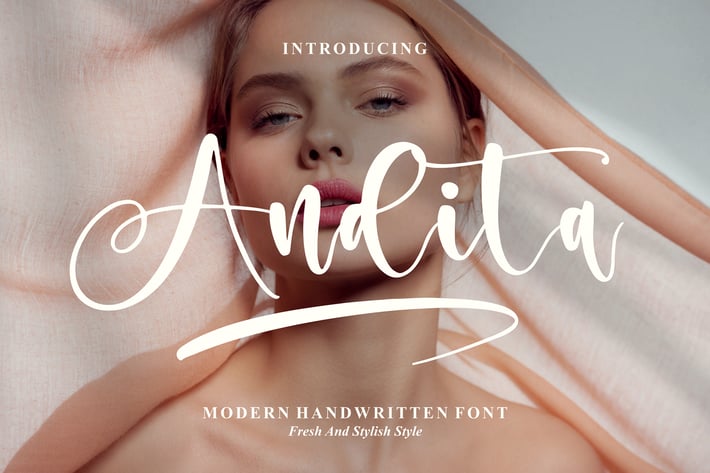
Andita Modern Handwritten Font
Andita is a modern handwritten font designed with soft strokes and a fresh, stylish personality. Its natural flow and elegant curves create a clean yet expressive look, making it perfect for contemporary designs that want to feel personal, warm, and effortlessly chic.
Modern handwritten style with smooth, flowing strokes
Clean and stylish letterforms with a natural rhythm
High readability for headlines and short text
Balanced look between elegance and casual charm
Fashion & beauty branding
Social media content and quotes
Logo marks and personal signatures
Editorial layouts and lifestyle designs
Invitations and creative stationery
A fresh handwritten font that blends modern elegance with a soft personal touch — simple, stylish, and timeless.*